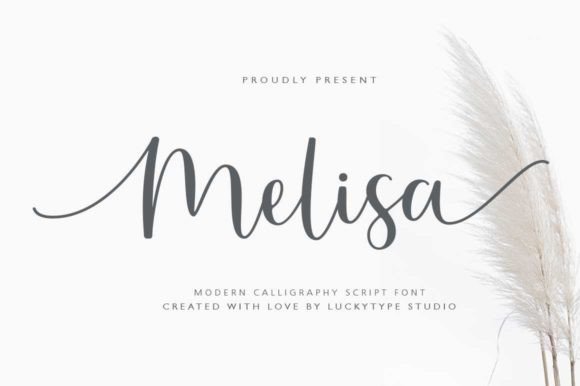
Prepare yourself to be spellbound by Melisa Font, a captivating script that dances like a dream across your digital canvas. This masterpiece from luckytype.font is not just a font; it's an enchanting adventure that sweeps you off your feet with its elegance and charm.
Melisa Script is the epitome of grace and sophistication, a font that effortlessly captures the essence of timeless romance. Whether you're crafting wedding invitations, designing feminine logos, or creating enchanting branding materials, Melisa Script is your perfect companion. Its starting and ending swashes add a touch of whimsy and playfulness, while its beautiful ligatures lend an air of delicate femininity to your designs.
Dive into the world of Melisa Script and let your creativity soar. This font is an artist's dream, transforming ordinary words into captivating works of art. Its smooth, flowing lines and elegant curves create a visual symphony that dances before your eyes, enchanting and captivating your audience. Every letter is a stroke of genius, and every word a masterpiece.